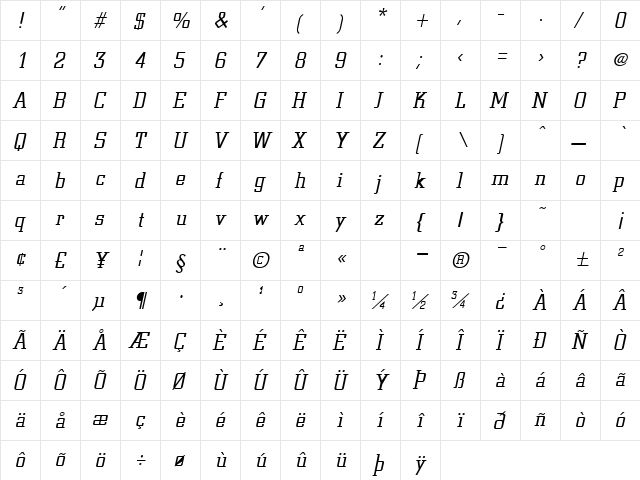
GE Civilized Italic
Design Context for GE Civilized Typeface
GE Civilized takes a measured approach to typography — its balanced proportions and neutral character make it a reliable workhorse for both digital and print work. The slanted form adds forward momentum and visual energy.
Pro Tip: Try GE Civilized for annotation and caption copy alongside an upright companion — the contrast in angle creates a dynamic but ordered typographic system.